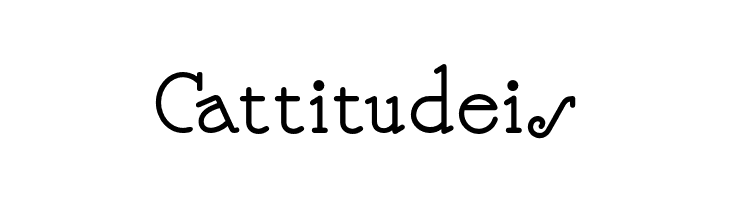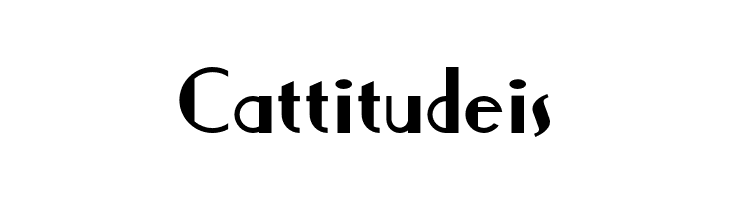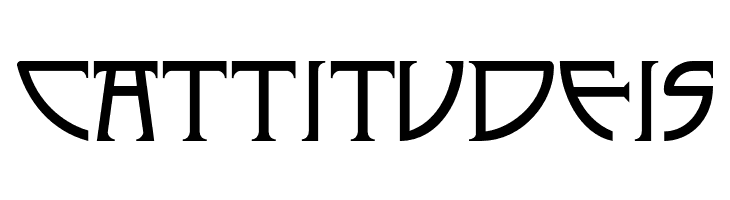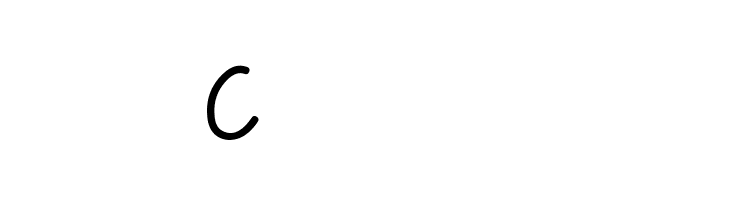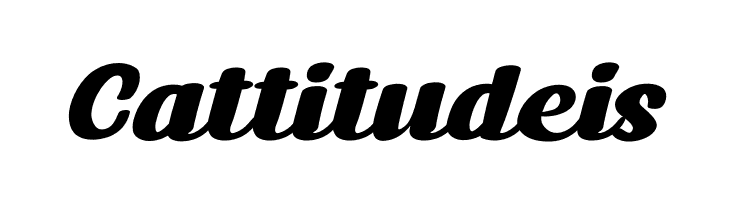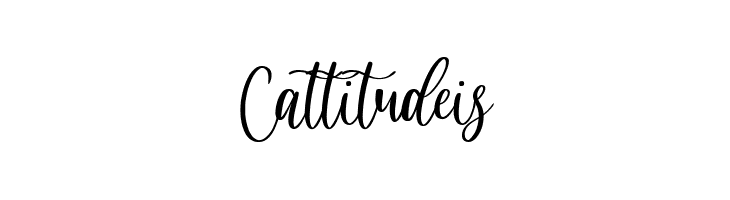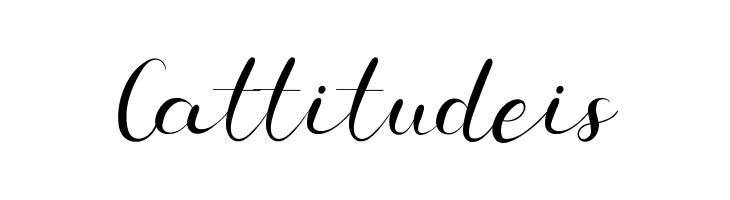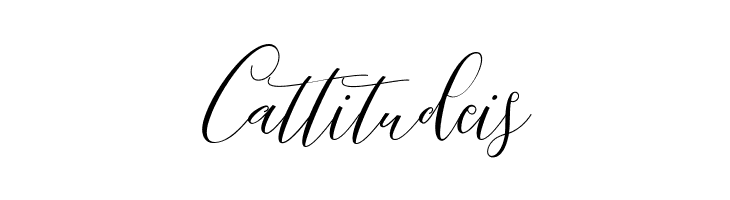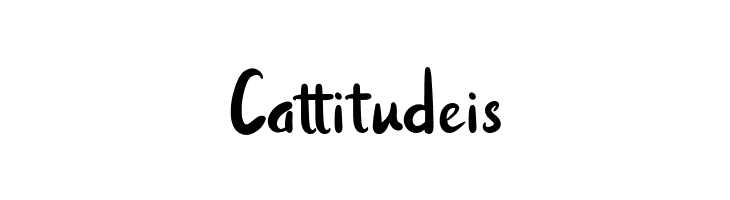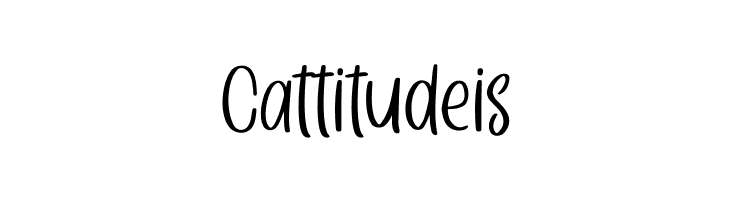
A bold, textured font with a rugged, distressed appearance.
A casual, handwritten-style font with a playful and personal touch.
A modern, clean sans-serif font with balanced proportions and excellent readability.
A playful and elegant script font with a handwritten style.
A bold, playful font with rounded, thick strokes and a friendly appearance.
A decorative, hand-drawn font with swirling, sketch-like strokes.
An artistic, hand-drawn font with swirling, textured lines and a whimsical style.
A decorative font with swirling, intricate lines and a whimsical, artistic style.
A playful, rounded font with a bold and friendly appearance.
A farm-themed pictogram dingbat font with cartoon-style illustrations.
An elegant, flowing script font with interconnected, cursive strokes and a modern calligraphic style.
Cartoonish, gangster-themed illustrated character font.
An elegant script font with flowing, cursive letters and a calligraphic style.
A charming handwritten script with smooth, flowing lines and connected letters.
An artistic and abstract collection of letterforms filled with intricate illustrations.
A decorative font with quirky character illustrations in circles, offering a playful and humorous style.
An illustrative, decorative font with each character set in a unique, playful scene.
Whimsical, illustrated font made of cartoon faces in ovals.
A playful, bold handwritten font with rounded strokes and a casual style.
A playful, hand-drawn font with a sketch-like texture and bold, rounded letters.
An elegant, flowing script font with a handwritten style.
A smooth, flowing script font with elegant, connected characters.
A cursive, handwritten-style font with elegant, flowing letters.
A playful, bold font with rounded, bubbly characters ideal for fun and creative projects.
A playful and whimsical font with quirky letterforms and creative embellishments.
A bold, geometric font with Art Deco influences and modern flair.
A bold, angular font with a futuristic and geometric design.
A playful, casual handwritten font with smooth, flowing lines.
A playful, bold handwritten font with rounded edges and consistent stroke width.
A bold, flowing script font with elegant curves and a modern classic style.
A playful, bold, and rounded font with a casual, handwritten feel.
A bold, vintage-inspired font with expressive curves and flourishes.